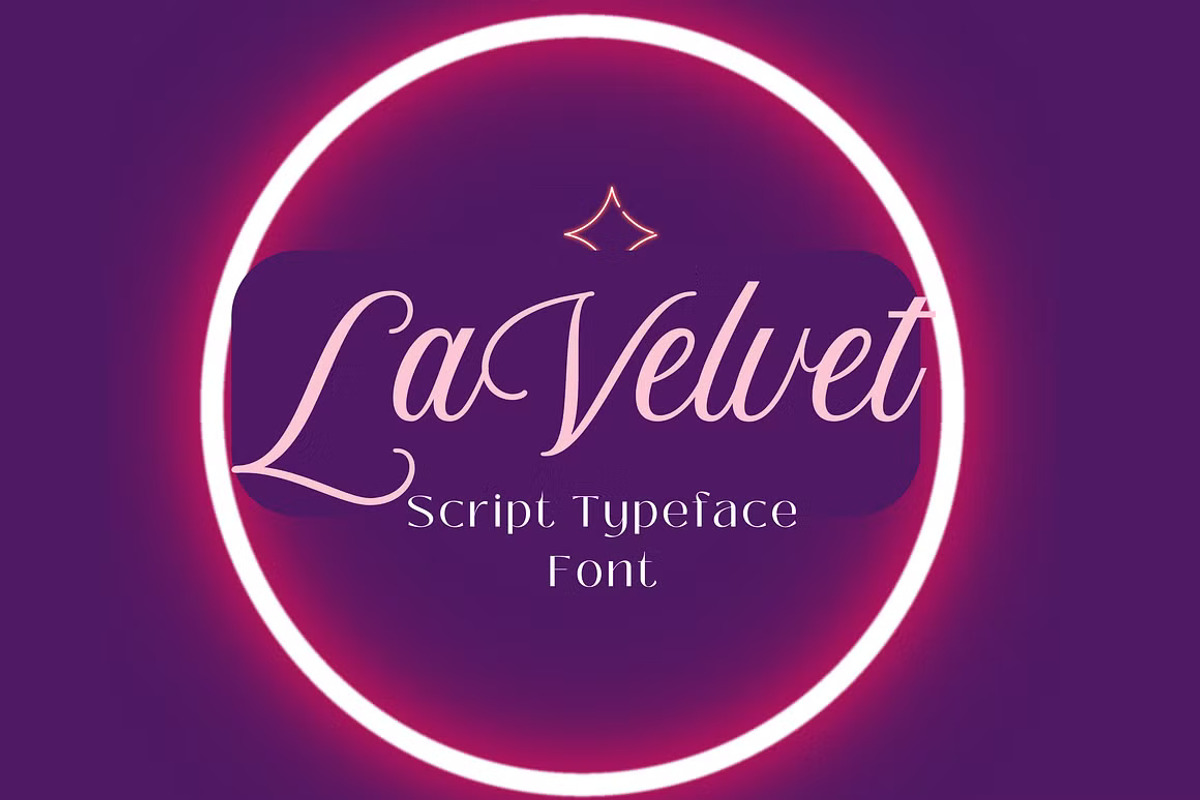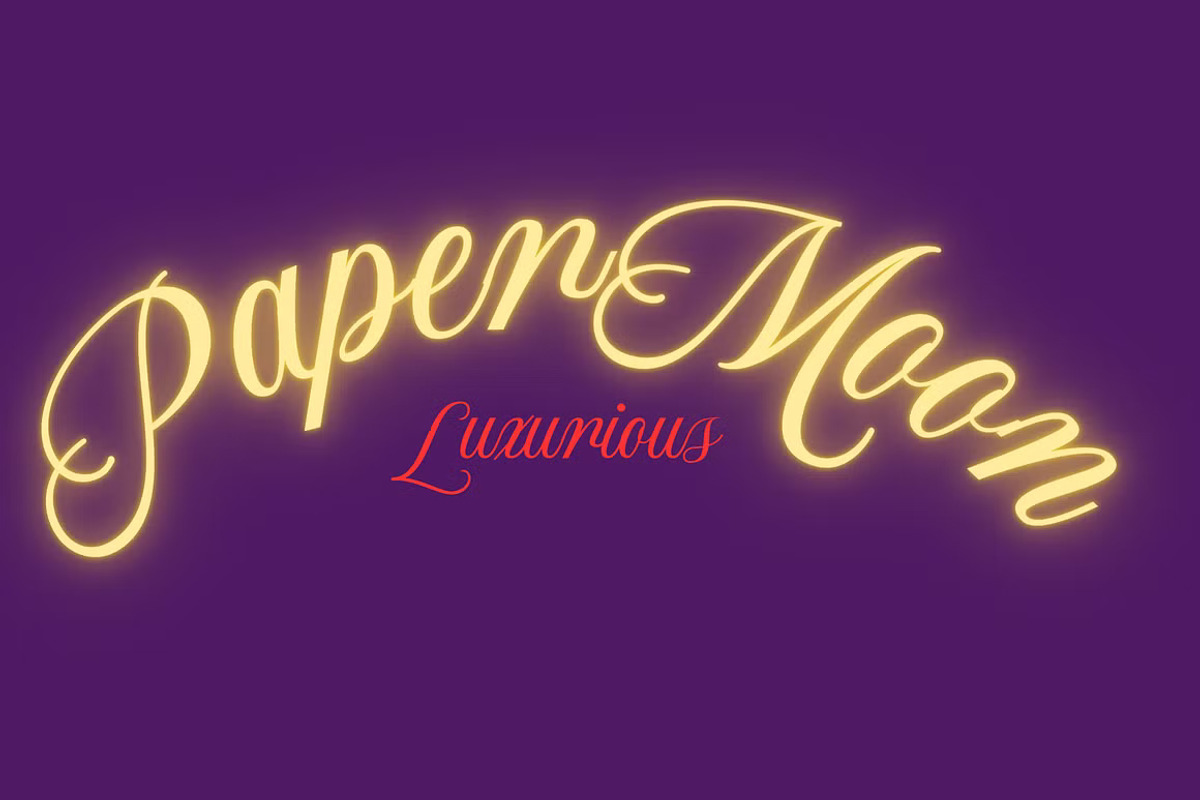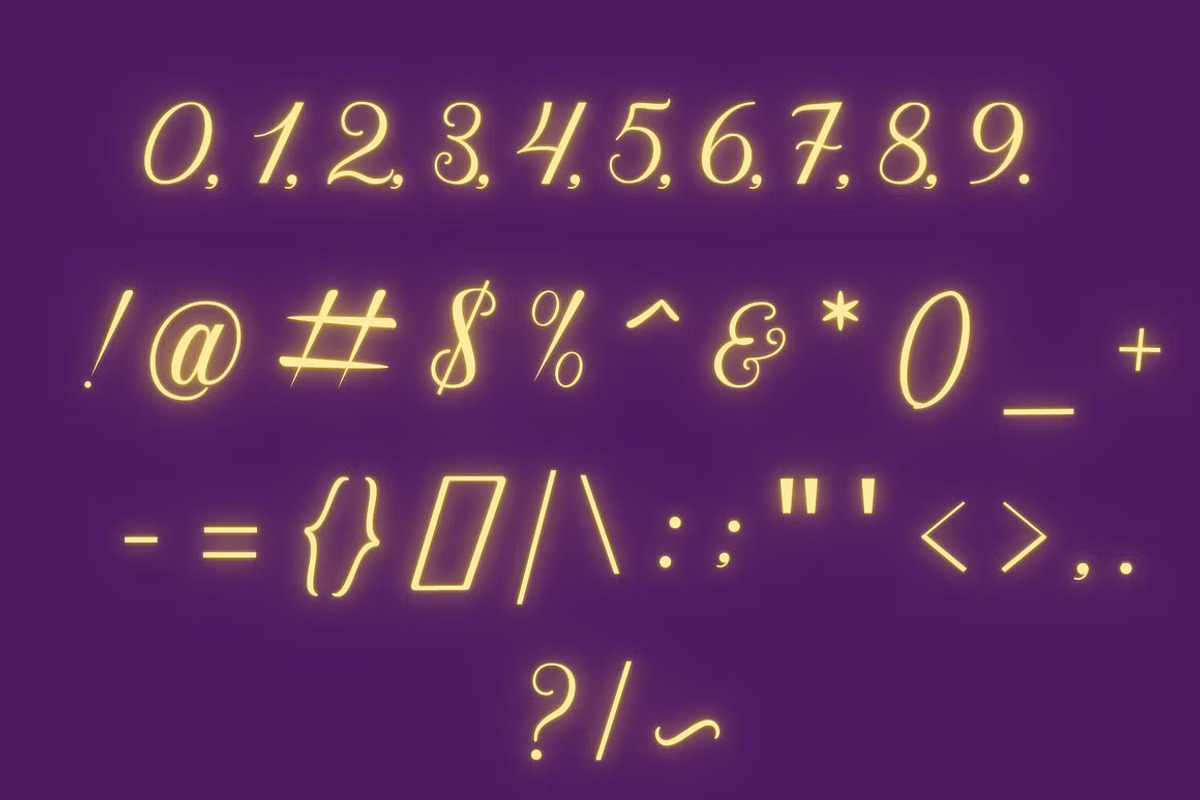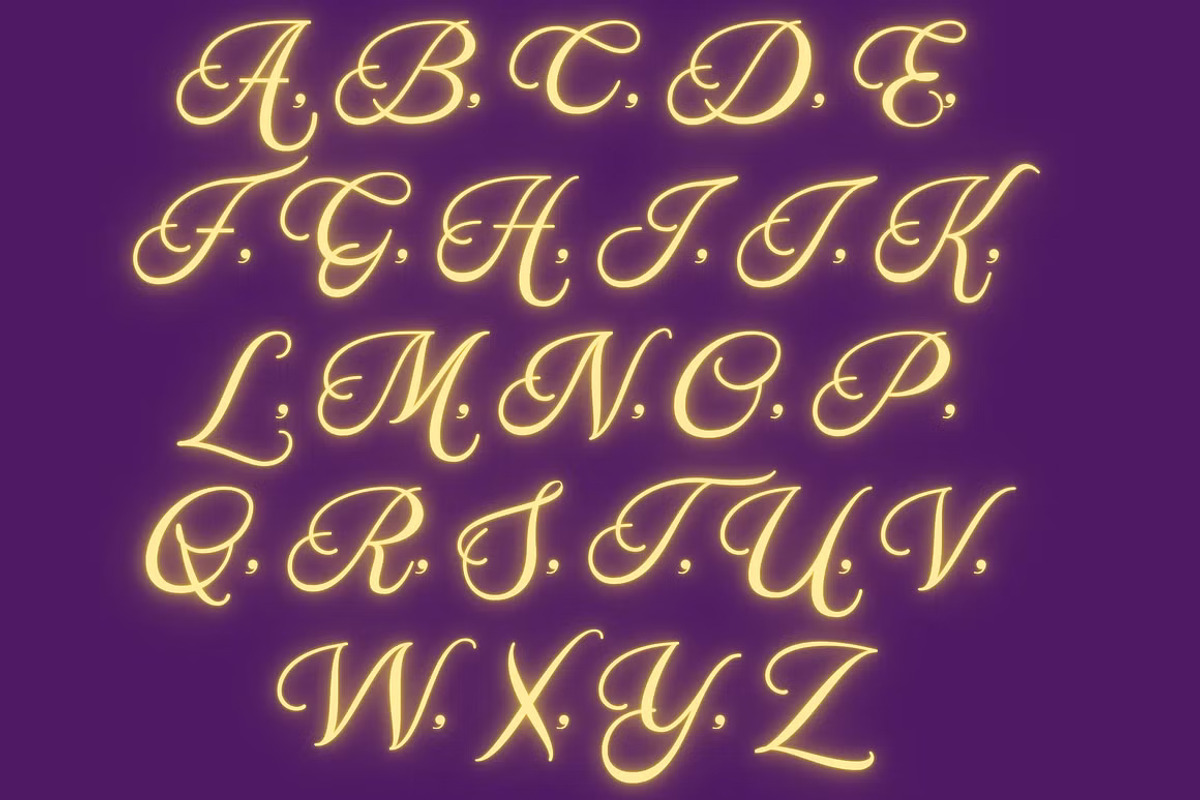
LaVelvet Elegant Script Font
Introducing LaVelvet Script Typeface: Elevate Your Design Projects with Elegance and Flair!
We are excited to unveil the LaVelvet Script Typeface, a meticulously crafted font designed to enhance the visual appeal and sophistication of any project you work on.
Complete Character Set: A-Z for comprehensive design versatility Numerals & Punctuations: Crafted to OpenType Standard for professional and seamless application Accent Support: Multilingual characters for global accessibility Stylistic Alternates: Add a unique and creative touch to your typography The LaVelvet Script Typeface is the ideal choice for bringing sophistication to your branding, invitations, editorials, and digital media projects. With its elegant script style, it lends a hand-crafted charm that enhances the beauty and creativity of any design.
Perfect for both professional and creative uses, LaVelvet provides flexibility and style that will make your work stand out. Each character is carefully designed to maintain both visual appeal and readability, ensuring your typography is always on point.
Add an elegant touch to your projects and captivate your audience with the timeless style of LaVelvet Script Typeface – your go-to solution for refined, creative design.